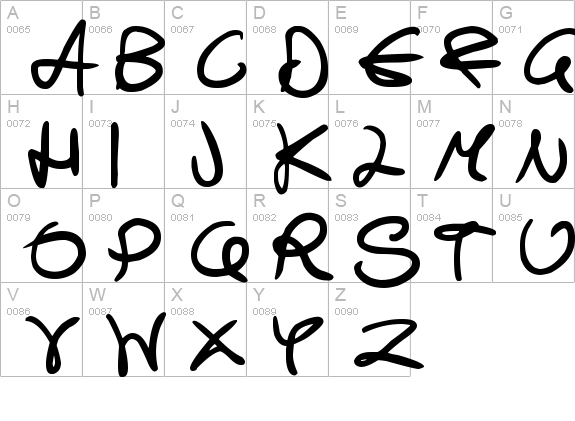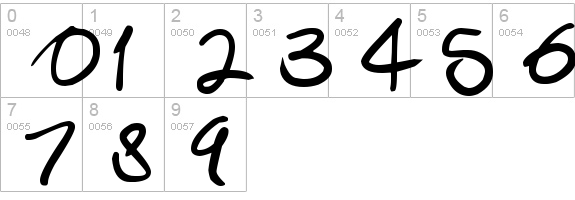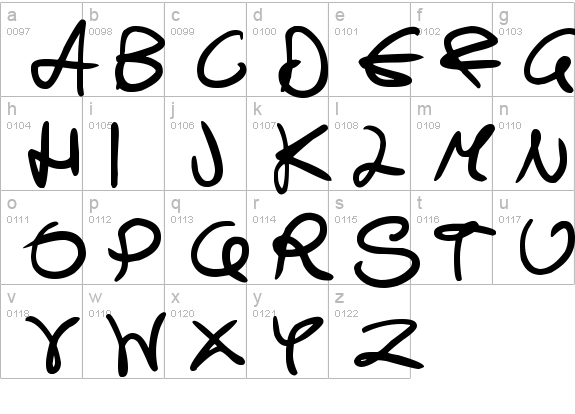
Swirly Curly Inks Font Details
Introducing Swirly Curly Inks font, a whimsical and playful typeface that adds a touch of elegance and charm to any project. The fluid and intricate swirls of this font create a unique and eye-catching design that is perfect for a variety of creative uses.
Swirly Curly Inks font is a versatile choice for invitations, branding, packaging, and more. Its graceful curves and intricate details make it stand out from the crowd and give your designs a sophisticated touch.